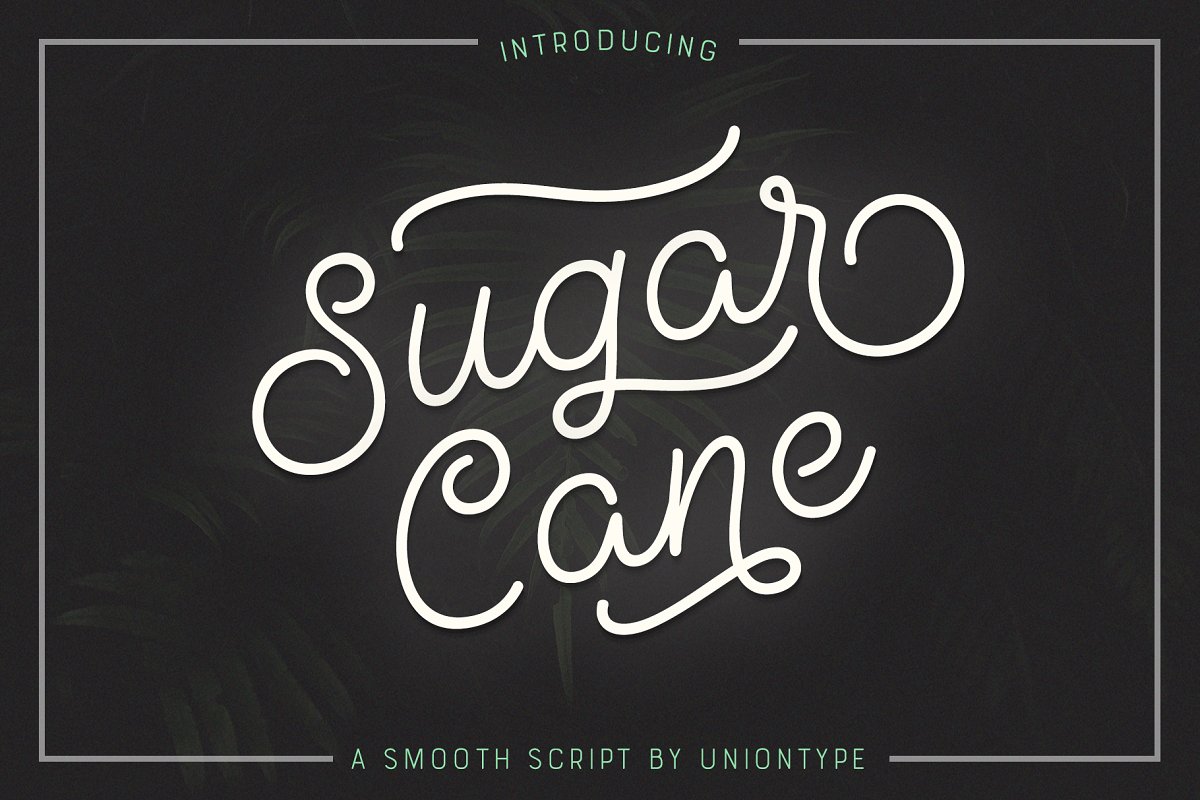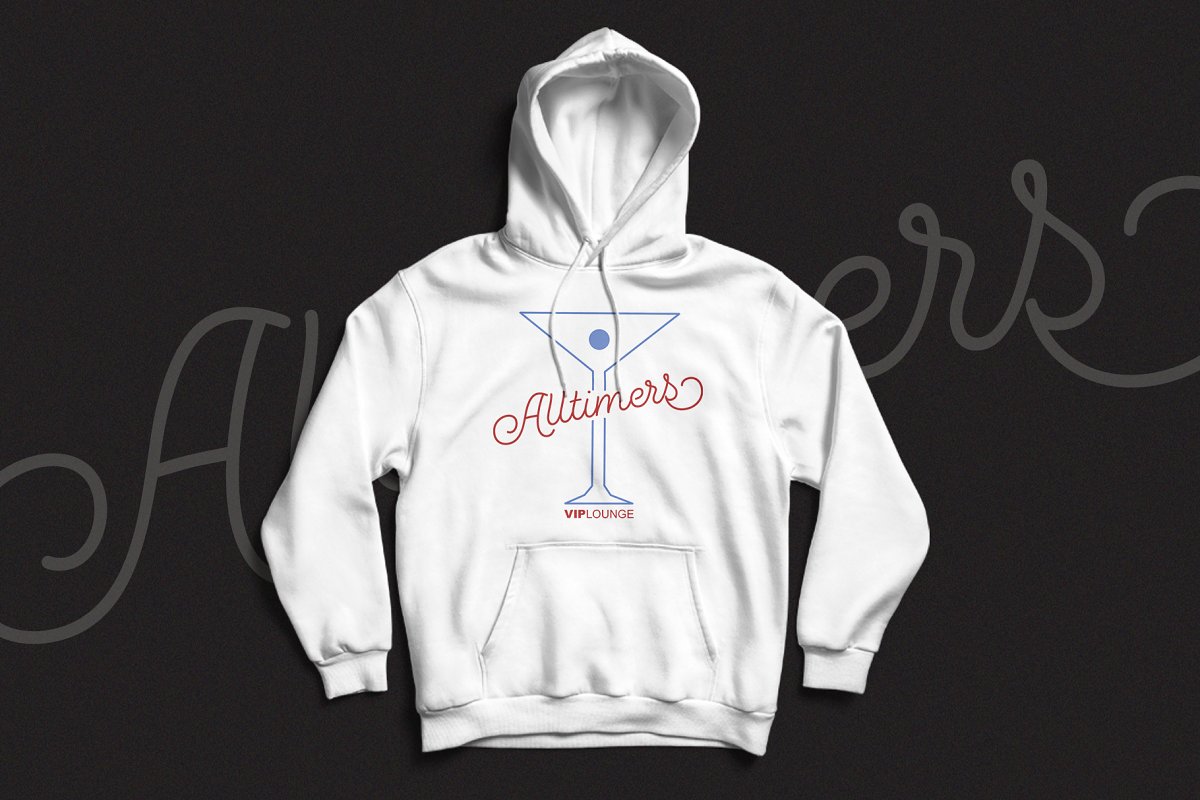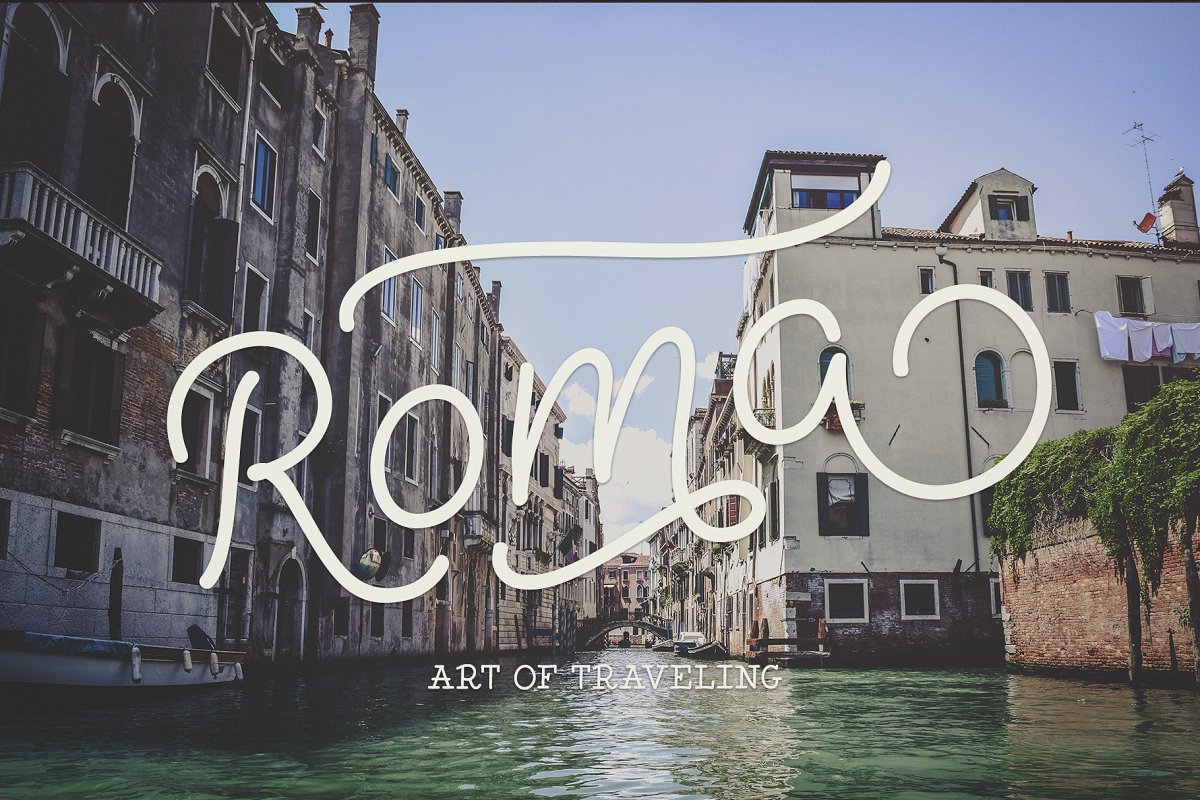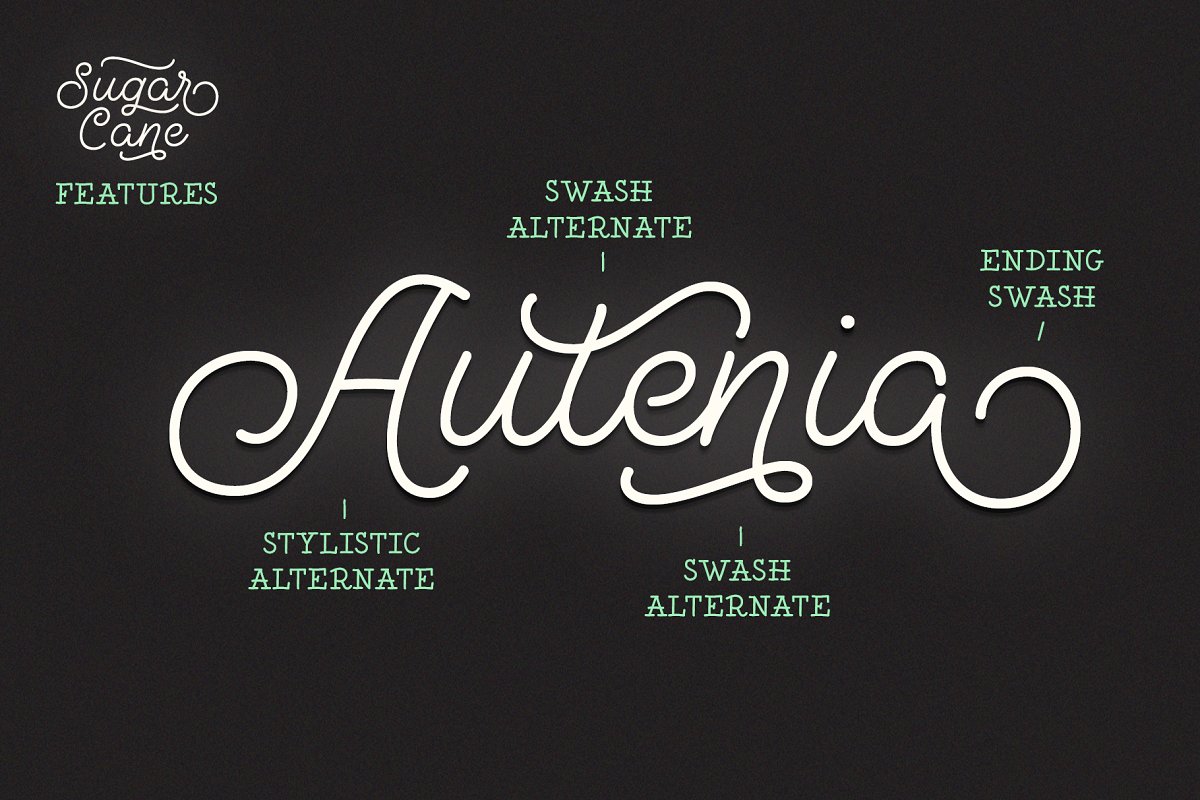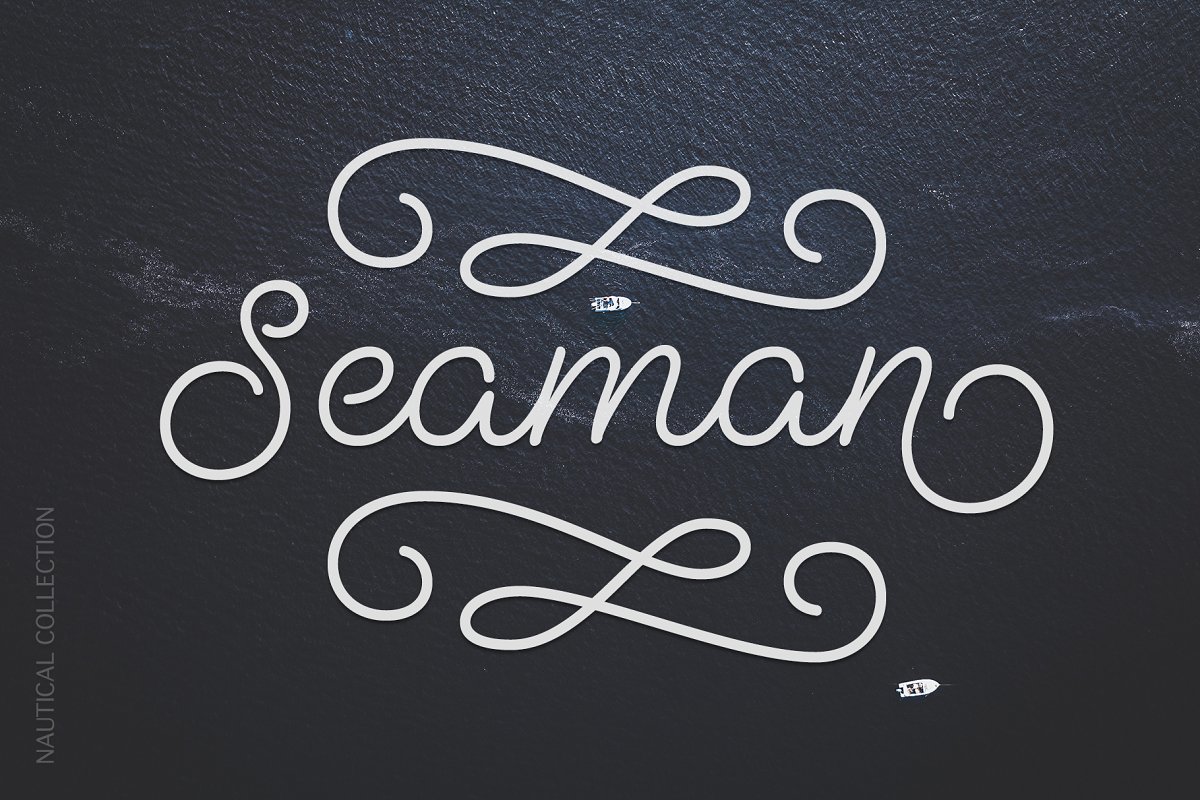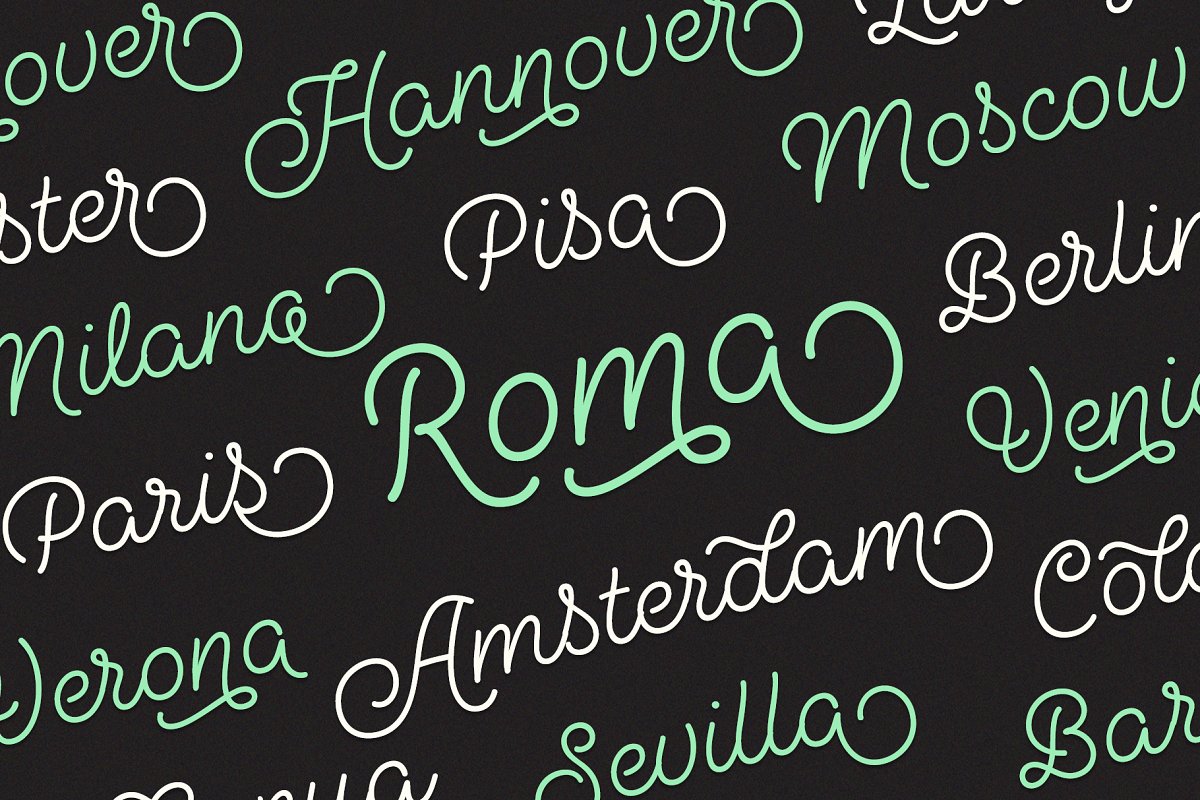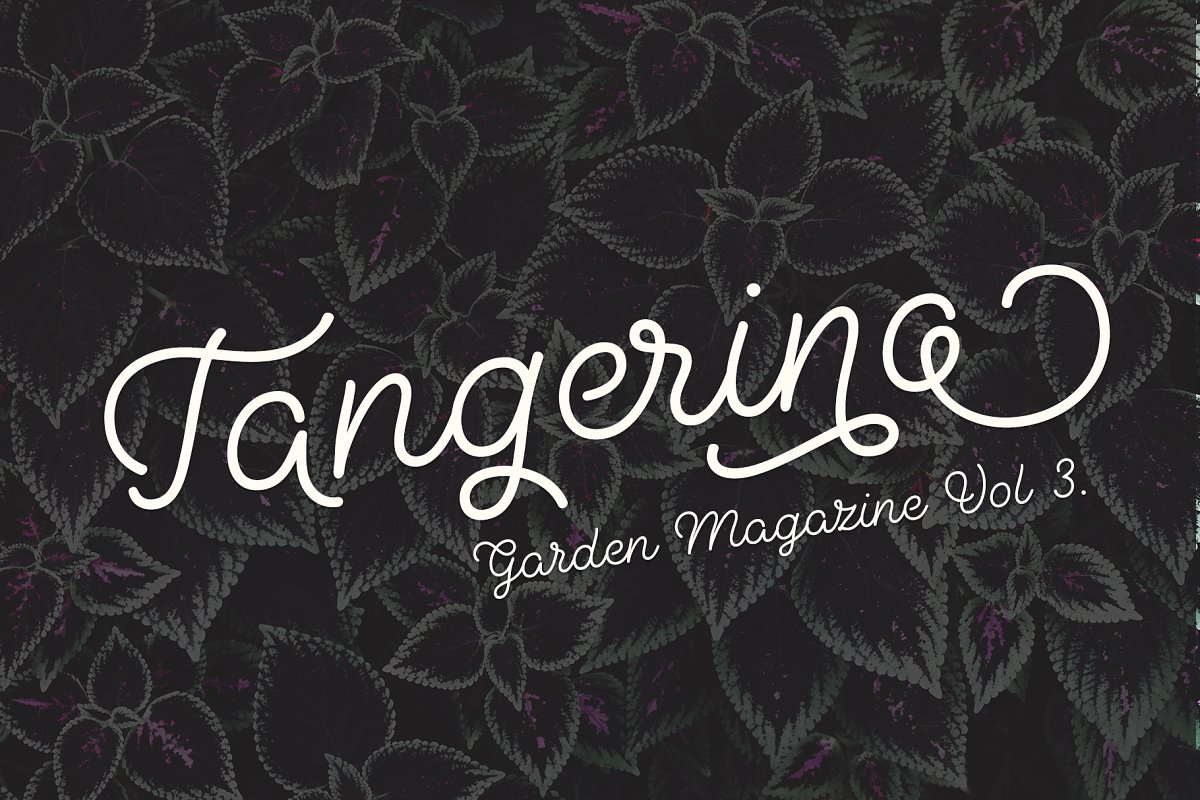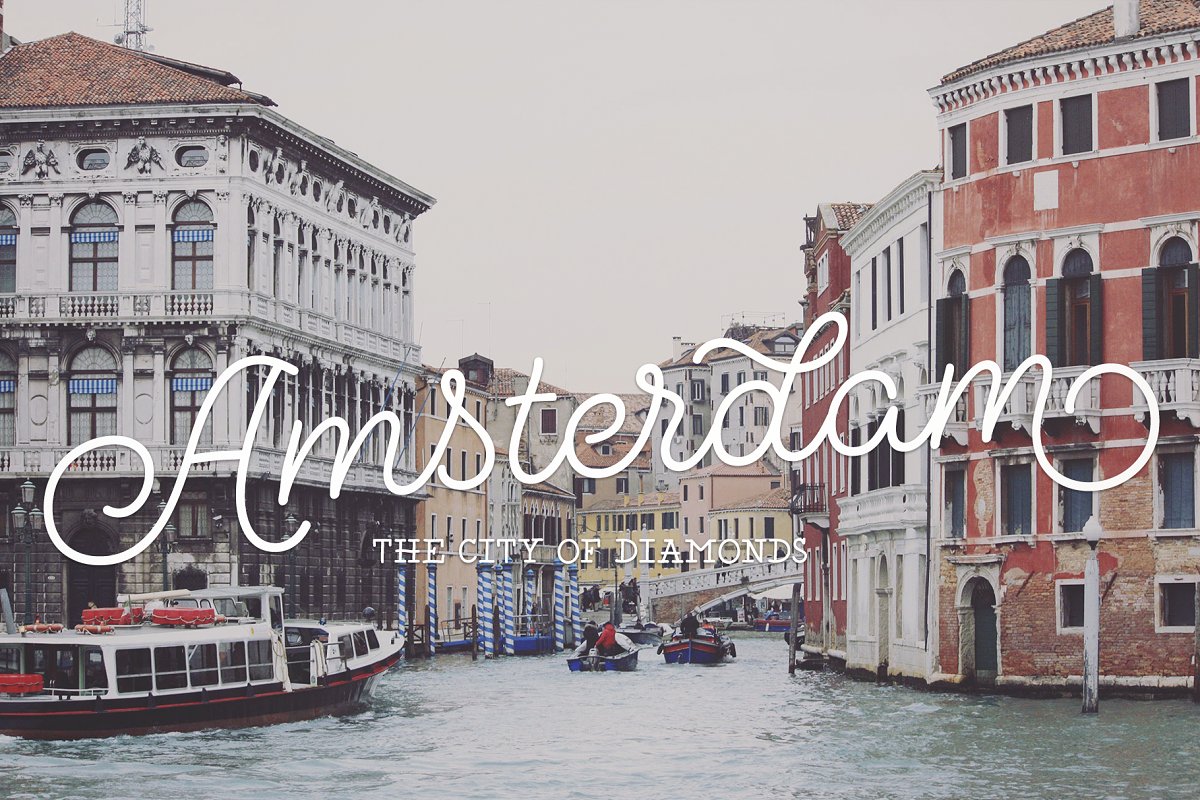
Sugar Cane by Uniontype is a fresh and light multilingual script inspired by vintage monoline fonts, It provides advanced typographical support with contextual alternates, ligatures and swashes, That way, you’ll have automatic access to the dozens of extra glyphs in each of the fonts, This font is good for menu, signs, packaging, posters, letterings and logos
stackexchange, com/questions/27959/does-photoshop-cs6-have-glyphsComes with multilingual support and supports the following languages: Czech, Danish, Dutch, English, Estonian, Faroese, Finnish, French, Galician, German, Icelandic, Irish, Italian, Norwegian, Portuguese, Polish, Spanish, Swedish, Swiss German